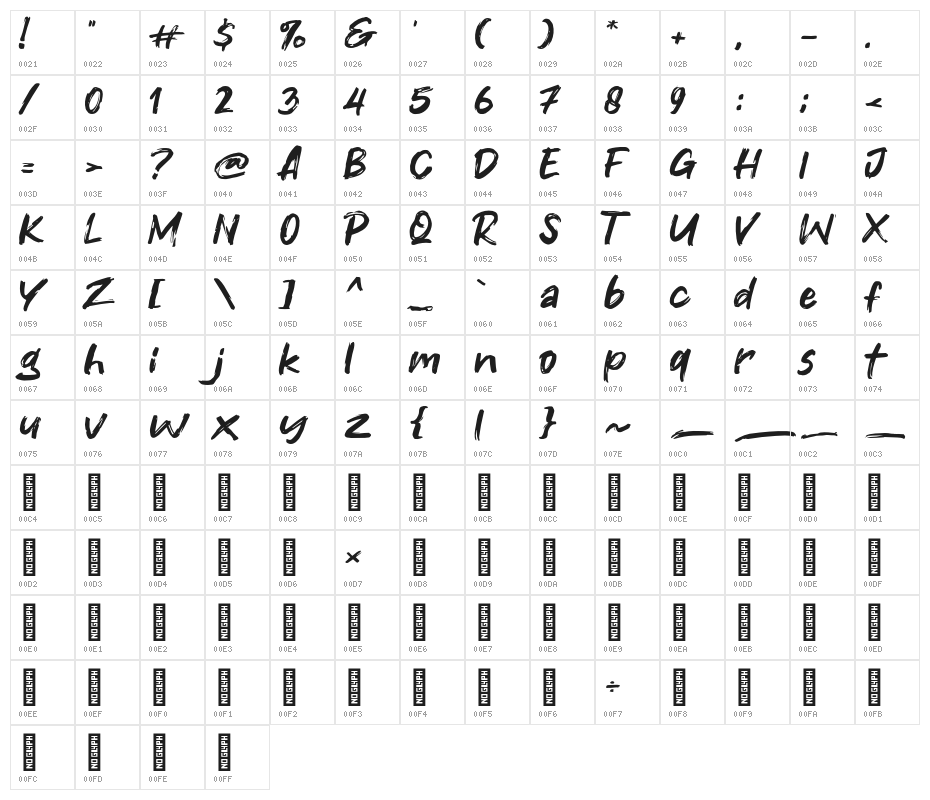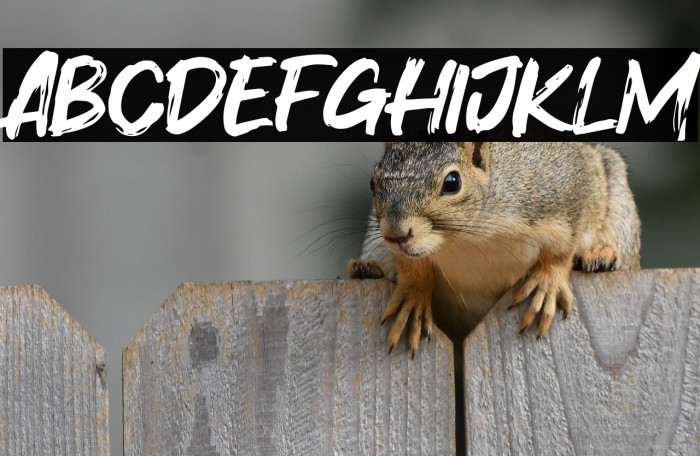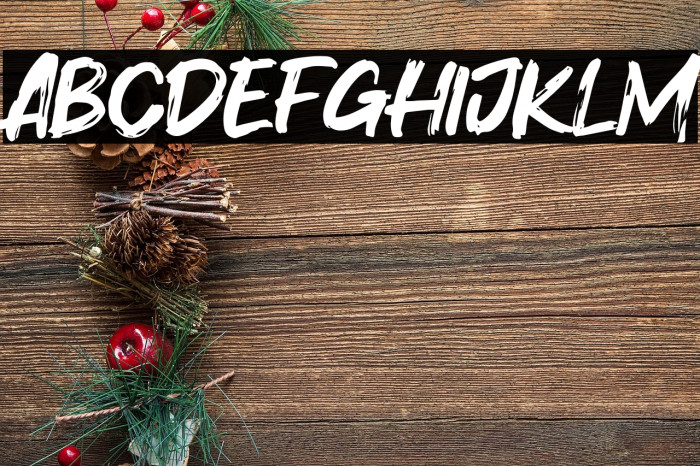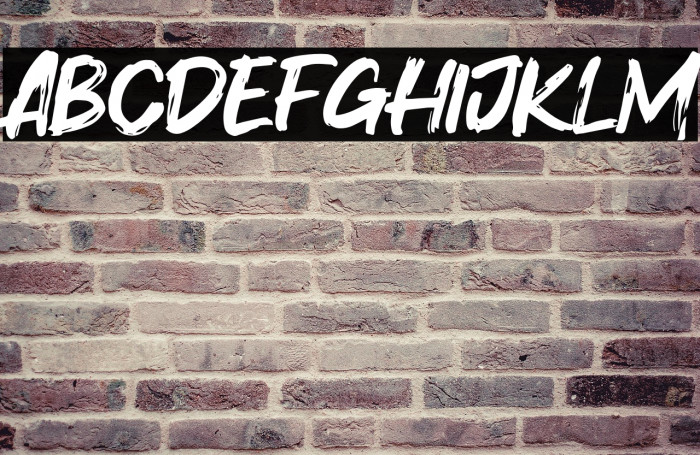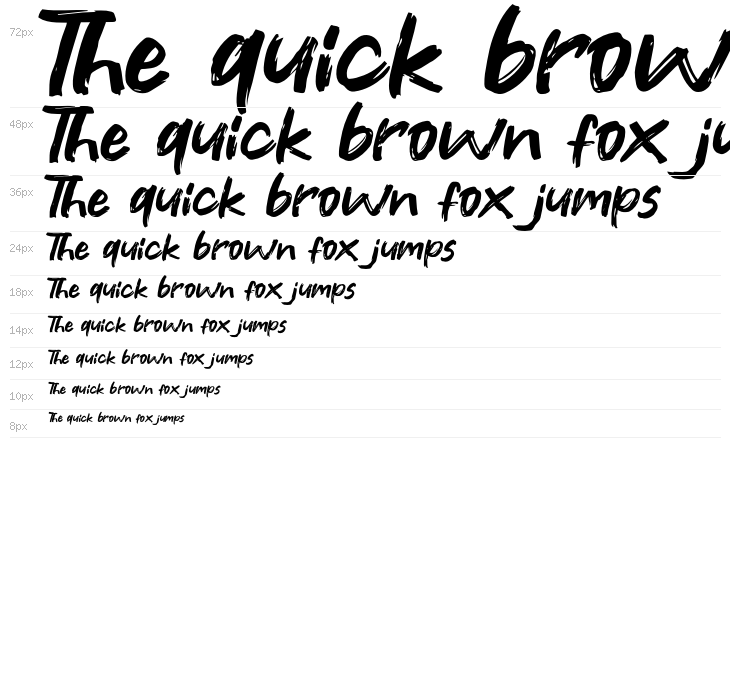
Kepolu Font
Kepolu Description
This font features a bold, expressive style with a brush-like texture that gives it a dynamic and energetic appearance. The strokes are thick and varied, creating a sense of movement and spontaneity. Each character is distinct, with slightly irregular edges that enhance its hand-drawn feel. The uppercase and lowercase letters maintain a consistent style, while the numerals and special characters integrate seamlessly, adding to the font's versatility. Its artistic flair makes it suitable for creative and eye-catching designs.
| Overall Style | Modern, Artistic |
| Proposed Projects | Ideal for posters, branding, album covers, and any project requiring a bold, artistic touch. |